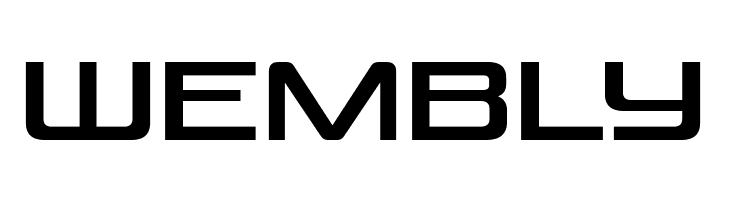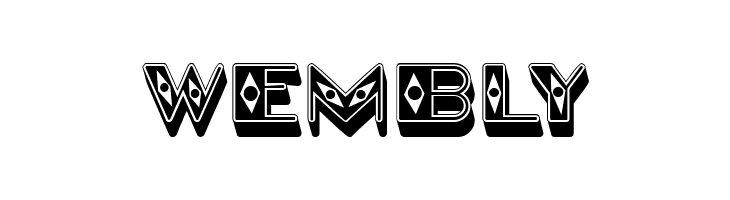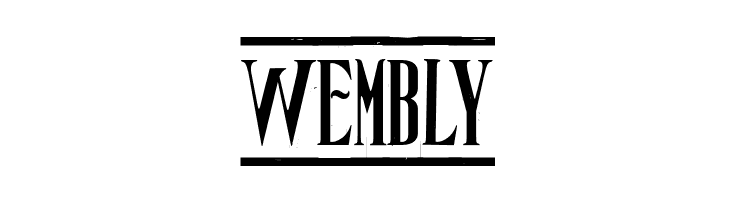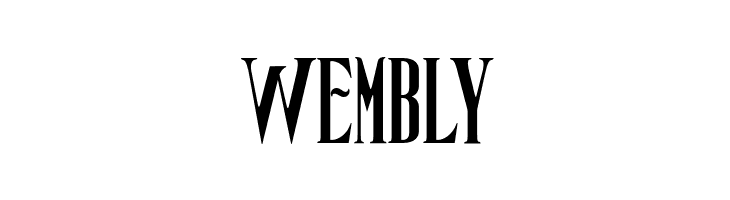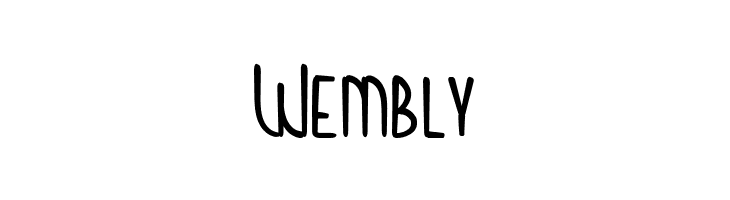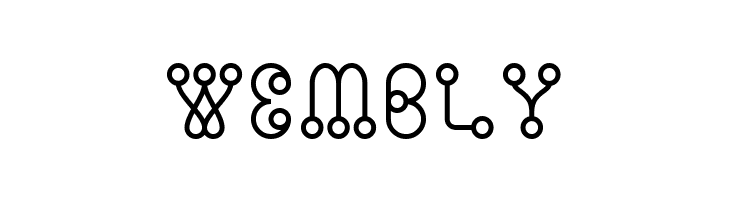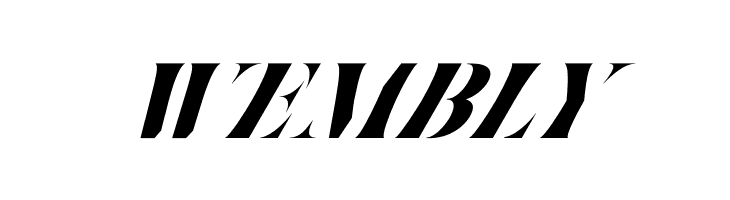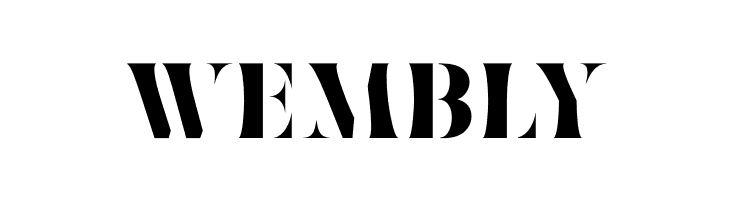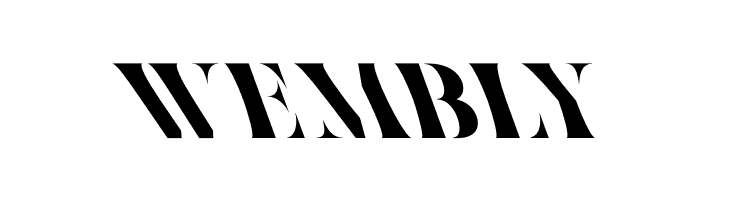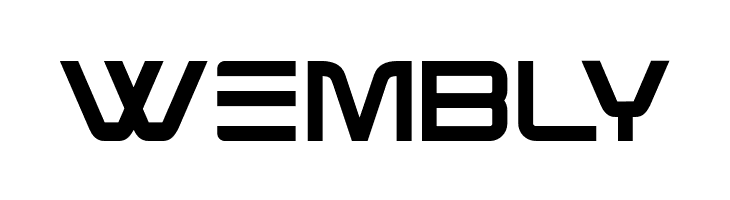
VENUE Font
A bold, decorative font with intricate, overlapping lines and an artistic flair.
Venue_on_the_Beach Font
A bold, distressed font with a weathered, vintage look.
Venus 3D Regular Font
A bold, 3D decorative font with geometric patterns inside each character.
Venus flytrap & the bug Font
A playful, hand-drawn font with tall, narrow letters and a quirky, organic style.
Venus Furs Font
A bold, textured font with a fur-like pattern, perfect for decorative use.
Venus Plant Font
A futuristic, geometric font with clean lines and a modern aesthetic.
Venus Play Demo Font
A bold, rounded, decorative font with a vintage feel.
Venus Regular Font
A bold, playful font with rounded, bubbly characters.
Venus Rising Font
A futuristic, geometric font with clean lines and angular shapes.
Venus Time Demo Font
A bold, rounded sans-serif font with a playful, dynamic appearance.
Venus-Normal Font
A tall, narrow font with a modern and sleek design.
VenusRising-Regular Font
A futuristic, geometric font with bold, angular shapes and a modern aesthetic.
VenusRisingRg-Regular Font
A modern, geometric font with a futuristic and sleek design.
Venusta Font
A playful, decorative font with circular embellishments and consistent bold strokes.
Venusufr Font
A playful, rounded font with consistent stroke width and modern appeal.
Venzira Regular Font
A layered, geometric display font with uppercase, lowercase, numbers, and symbols.
Ver Army Font
A bold, stencil-style font with sharp serifs and industrial appeal.
Vera Humana 95 Font
A modern, elegant font with balanced proportions and subtle stroke contrast.
Vera Humana 95 Bold Font